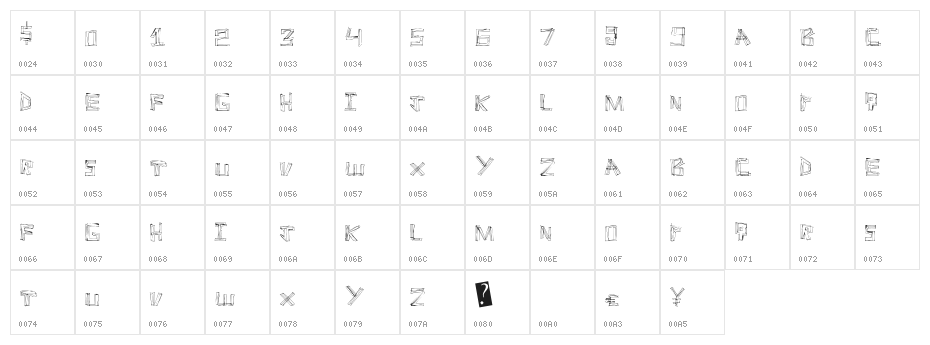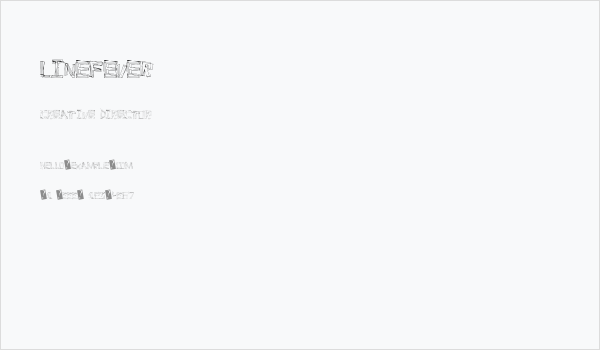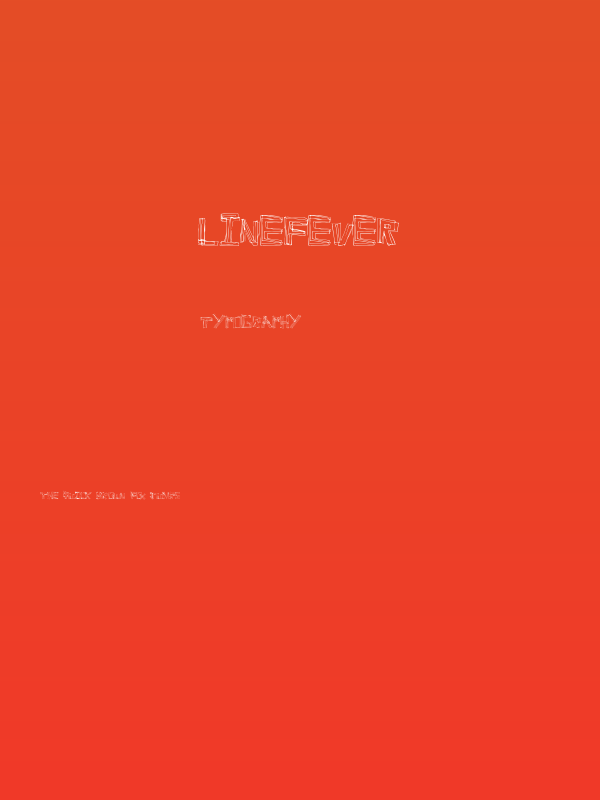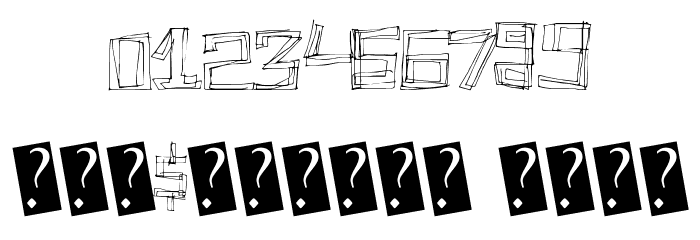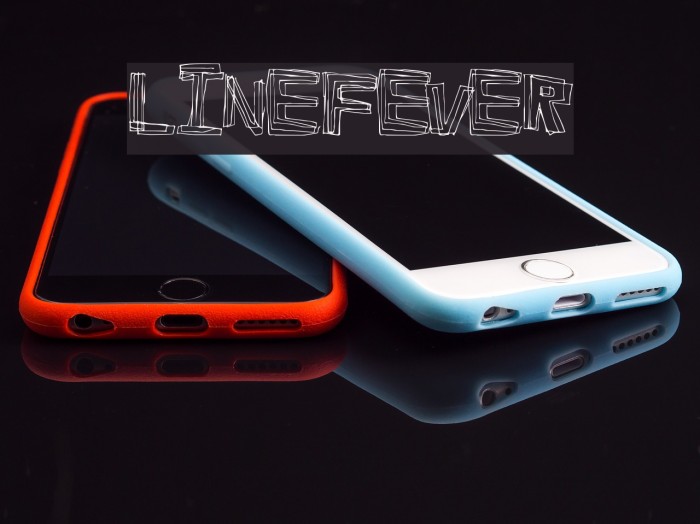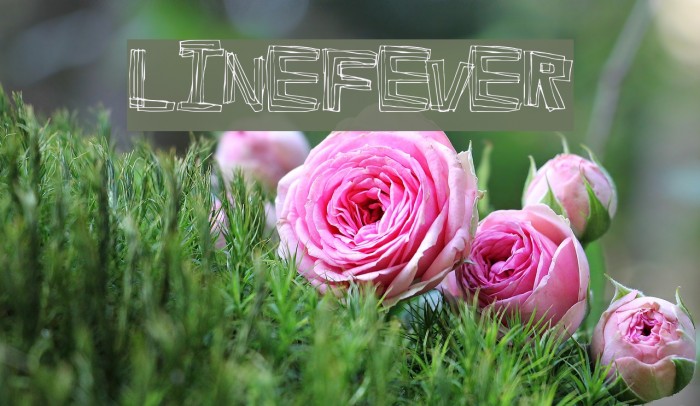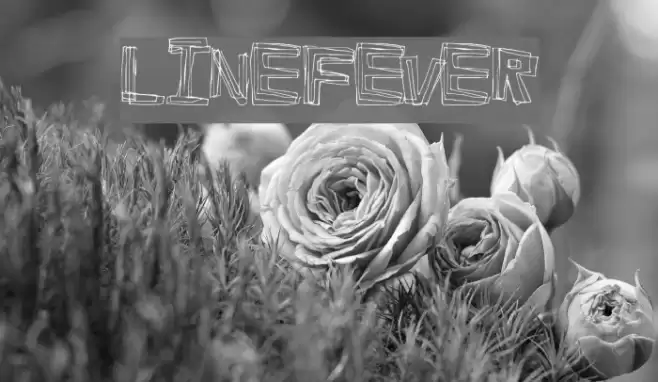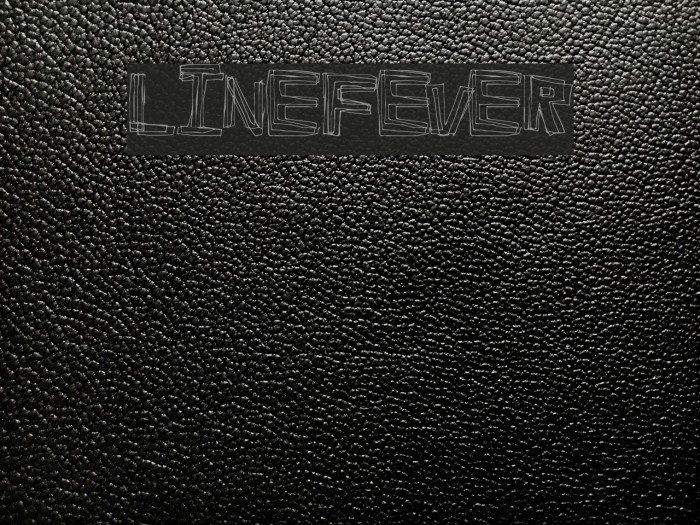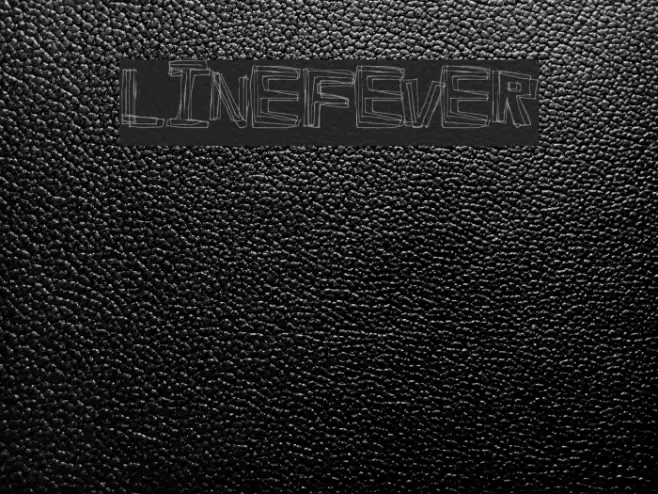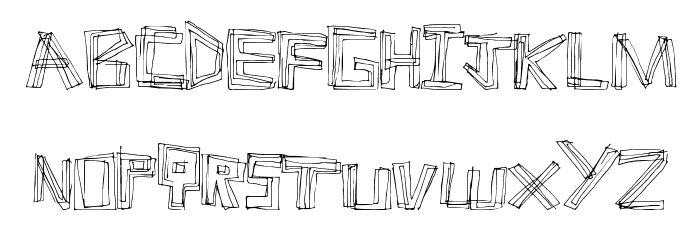
LineFever Font
LineFever Description
This font features a unique, hand-drawn style with a sketch-like appearance. Each character is composed of multiple overlapping lines, giving it a dynamic and energetic feel. The uppercase and lowercase letters maintain a consistent style, with angular and geometric shapes. Numbers and special characters follow the same design principles, ensuring uniformity across all glyphs. This font's distinctive look makes it stand out, ideal for creative and artistic projects. The irregular line work adds a sense of movement and spontaneity, making it suitable for designs that aim to convey a sense of creativity and individuality.
| Use Case | Logos, Posters, Creative Branding |
| Proposed Projects | Ideal for artistic projects, creative branding, posters, and unique logo designs. |